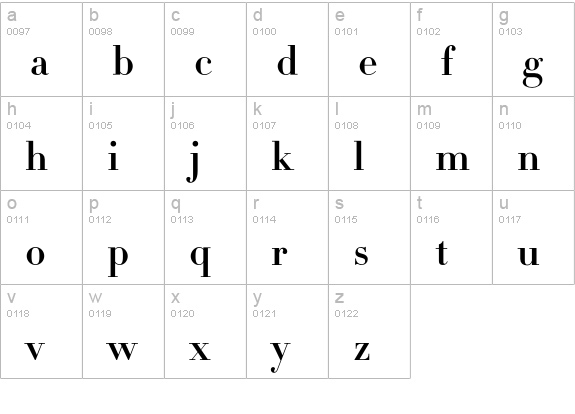
Didot-HTF-B11-Bold Font Details
Didot-HTF-B11-Bold is a strong, high-contrast variant in the Didot typeface family \xE2\x80\x94 well suited to headlines, attention-grabbing titles, and strong calls-to-action.
Didot-HTF-B11-Bold is a striking and elegant font that exudes sophistication and modernity. With its bold weight, it commands attention and makes a statement in any design project. The sharp, clean lines and precise geometry of this font provide a sense of refinement and luxury. What sets Didot-HTF-B11-Bold apart is its versatility - it works beautifully in both print and digital designs, adding a touch of class to any project. Whether you're creating a logo, heading, or body text, this font will elevate your work to the next level. And the best part? Didot-HTF-B11-Bold is completely free to download at FontsMarket.com. Now you can access this premium font without breaking the bank, making it the perfect choice for designers looking to add a touch of sophistication to their creations. Download it today and see the difference it can make in your designs.